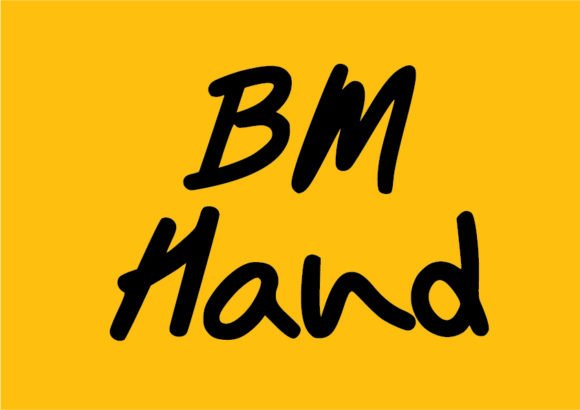
Bams Hand Font: Capturing the Essence of Quick Note Taking
Have you ever found yourself scribbling down ideas in a hurry, the words bleeding together on the page as your pen moves swiftly across the paper? It’s a moment of pure creative chaos, and yet, it’s exactly this kind of energy that inspired the Bams Hand Font. This casual, handwritten font is a digital representation of the imperfections and quirks of quick note taking, capturing the essence of a moment in time.
As a font, Bams Hand Font is designed to bring a touch of authenticity to your designs, adding a human element to digital communication. For designers, it’s a valuable tool for creating engaging, approachable content that resonates with audiences. Whether you’re working on a branding project, a social media campaign, or a web design, Bams Hand Font can help you connect with your audience on a deeper level.
Bams Hand Font Key Features
- Size: The font family consists of 2 weights (Regular and Bold) and 2 styles (Up and Down), offering a total of 4 font styles.
- Unique Characteristics: The font features a unique, hand-drawn design with subtle imperfections, giving it a natural and organic feel. The font is also highly legible, making it suitable for body text and headlines.
Bams Hand Font Review
I’ve had the chance to work with Bams Hand Font, and I must say it’s a font that stands out in its own unique way. ✨ One of the things I appreciate about this font is its cursive, handwritten feel. It’s perfect for adding a personal touch to branding materials, posters, or even wedding invitations. The font’s variability in line thickness and letterforms creates a sense of organic movement that’s hard to replicate with more formal fonts.
However, there are some limitations to consider. ⚠️ The font may not be the best choice for small text, as the characters can become illegible at certain sizes. Additionally, some characters, like the “k” and “y”, can be a bit inconsistent in their design, which may lead to visual clutter if not used carefully.
Overall, I think Bams Hand Font is a solid choice for projects that require a whimsical, handwritten feel. It’s perfect for designers who want to add some personality to their work without sacrificing readability. With a little finesse, this font can add a unique touch to any design.
- ✨ Great for adding a personal touch to branding materials, posters, or wedding invitations
- ✨ Unique, cursive, handwritten feel
- ⚠️ May not be suitable for small text
- ⚠️ Some characters can be inconsistent in design
Tips for Getting the Most Out of Bams Hand Font
Use Bams Hand Font for titles, headings, and short paragraphs to add a touch of personality to your designs. Experiment with different font sizes and colors to create visual interest. Combine Bams Hand Font with other fonts to create a unique and eye-catching design.
Bams Hand Font is perfect for: